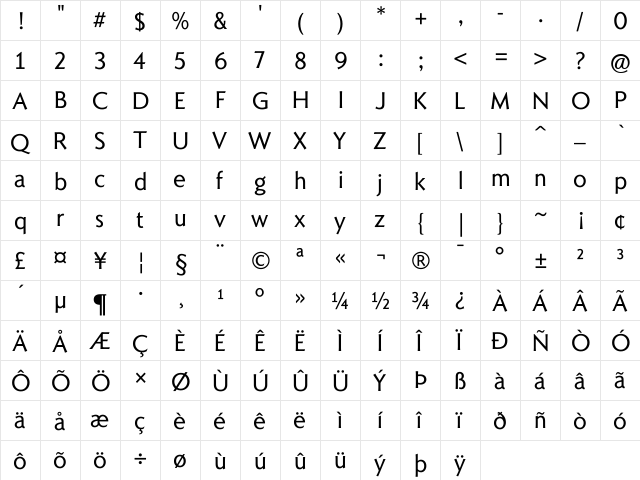
Romanica Regular
| Designer | Keith Bates |
| Copyright | ROMANICA 17 is a relaxed humanist sans with subtly curved corners and slightly flared glyphic terminals that are expressively angled where appropriate. Romanica has the authority of the ages minus the harshness of many classically inspired typefaces. |
Design Context for Romanica Typeface
Romanica offers clean, dependable letterforms without strong stylistic allegiance, making it a practical choice for designers who need flexibility.